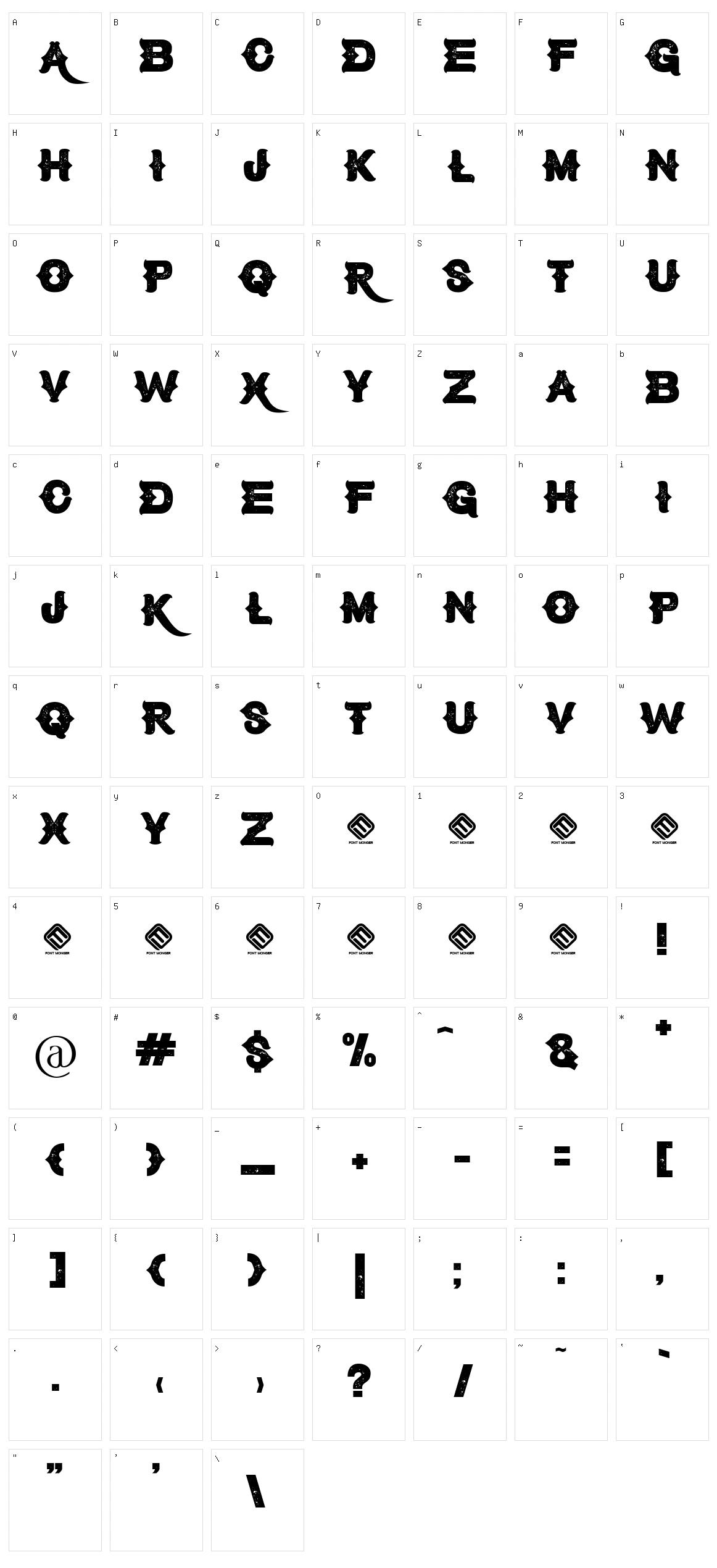
The free font Cowboy Karaoke is carefully designed by Font Monger, showcasing a thoughtful balance of creativity and usability and falls under the Western font style. When you download the ZIP file, it contains only 104.73 KB of font files, making it lightweight and quick to download. Please review the license details below to understand permitted usage and distribution rights. If license information is not available, we recommend using this font for personal projects only or contacting the author directly for commercial usage permissions.
Designed by: Chris Vile